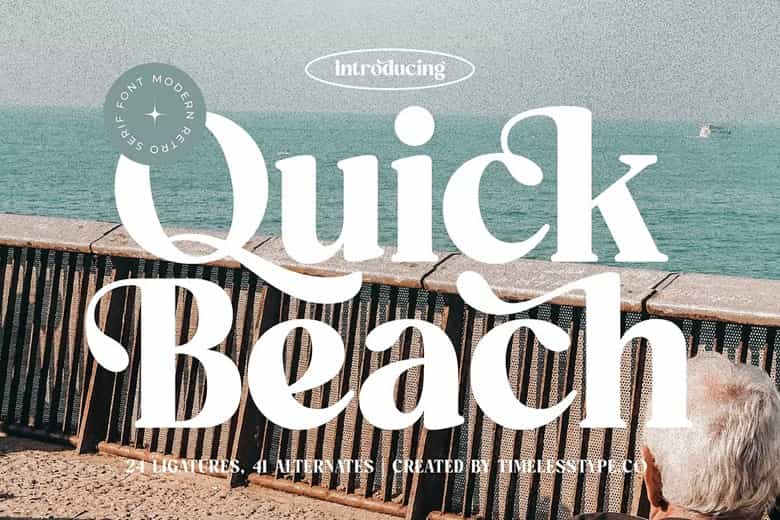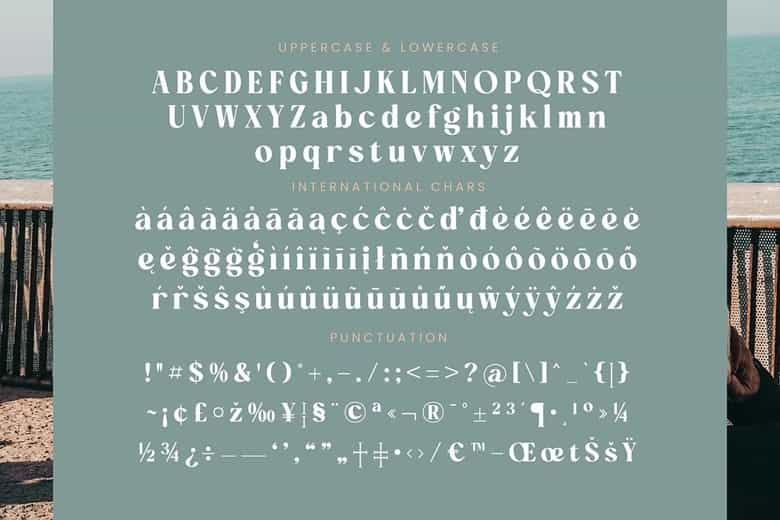
Quick Beach is a modern retro serif font, from Timelesstype.Co, It is perfect for any projects such as: posters, logos, branding projects, home ware designs and product packaging, quotes and sayings, shopping bags, t-shirts, book covers, name cards, invitation and greeting cards, label designs, special occasions and all your other premium and elegant projects.